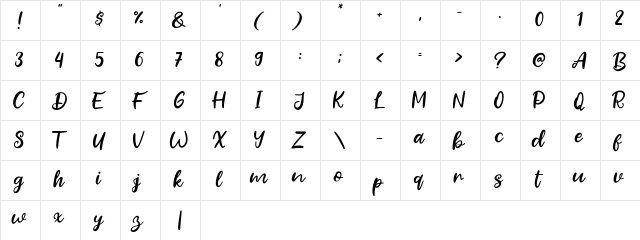
Fresh Guava Regular
Design Context for Fresh Guava Typeface
Fresh Guava is a composed and adaptable typeface that performs quietly and consistently across a wide range of design contexts.